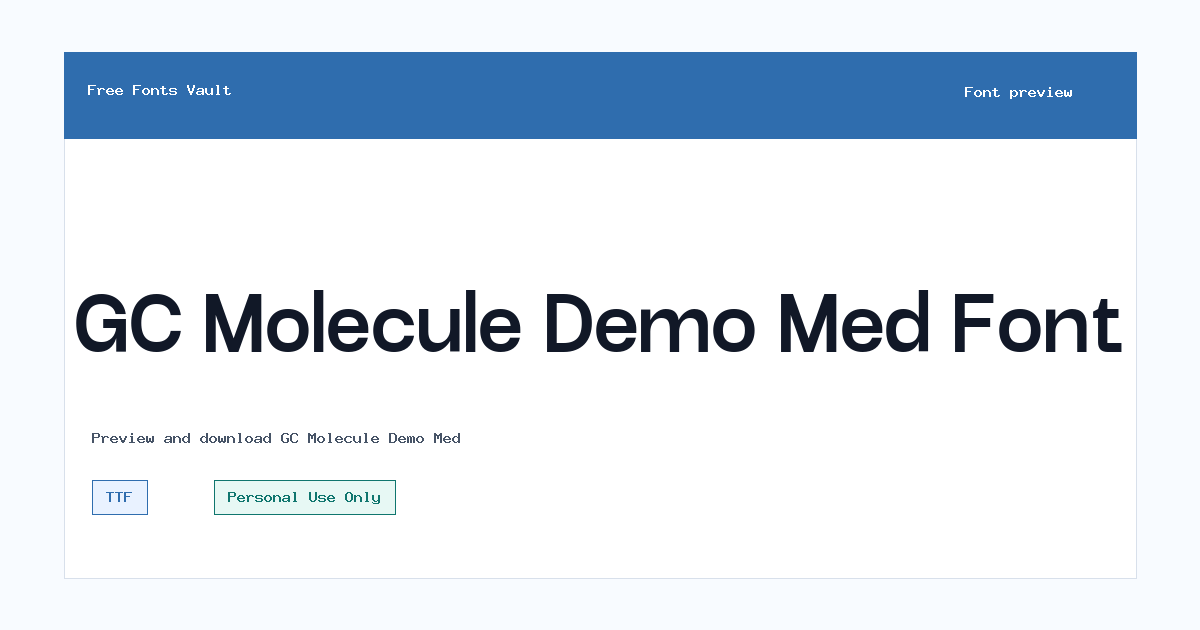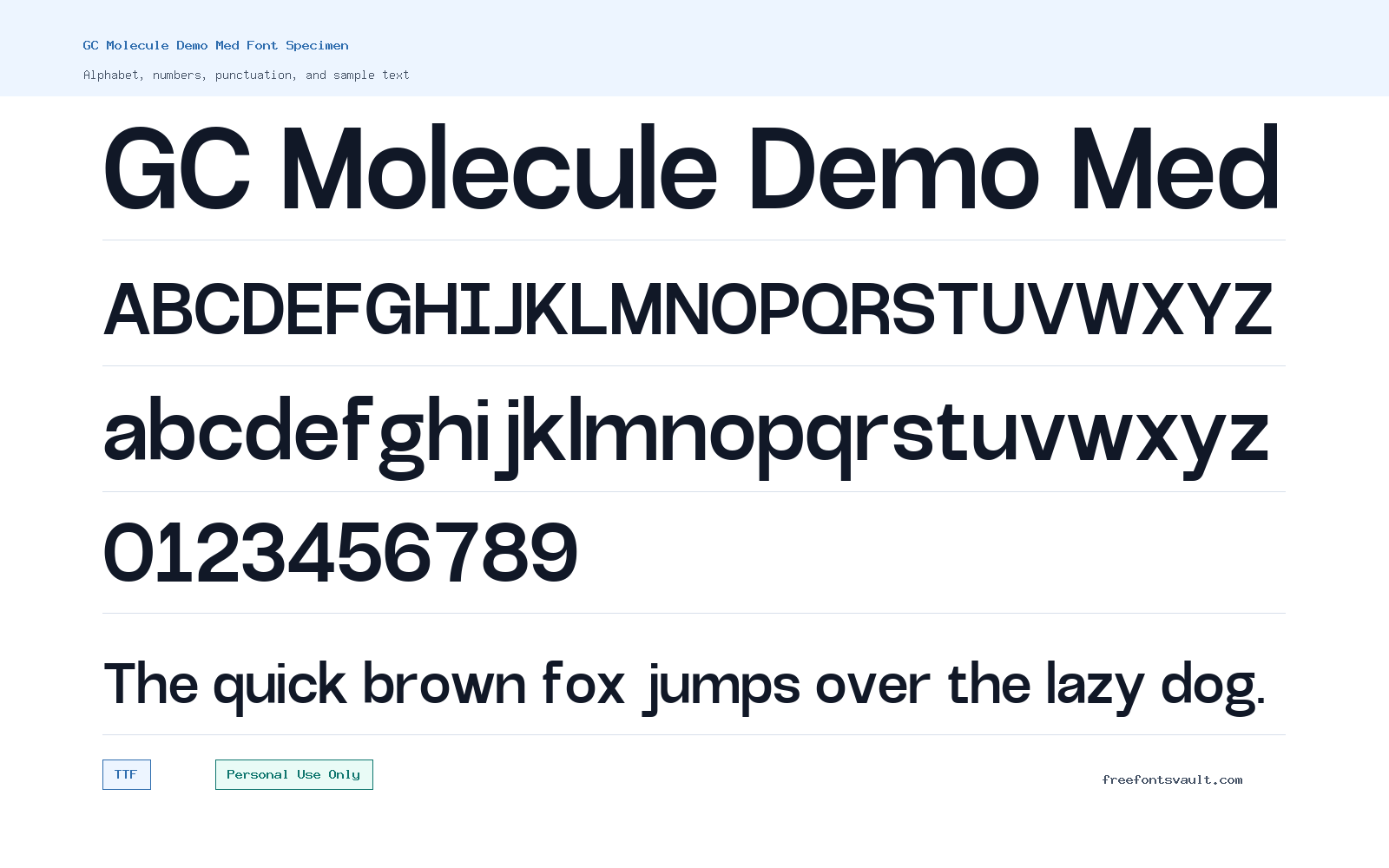
GC Molecule Demo Med
- Designer Ken Priska Dewirani of Glyphonic
GC Molecule Demo Med is a medium-weight demo sans serif with rounded bowls, clean verticals, and a compact modern look. It works best when you want a clear display face that still feels friendly at headline size.
About GC Molecule Demo Med
GC Molecule Demo Med has a simple sans serif structure with smooth curves and firm strokes. In the preview, the uppercase letters feel steady and direct, while the lowercase letters bring a softer tone through single-storey forms such as a and g. The medium weight gives it enough presence for titles without becoming too heavy. It is not a decorative script or distressed display font; the appeal is in its clean shape, tight rhythm, and approachable geometric feel.
- Rounded, modern sans serif look suited to short display text
- Personal-use headlines, posters, social media graphics, and web hero text
- Logo drafts, labels, title cards, and clean layout experiments
GC Molecule Demo Med is credited to Ken Priska Dewirani of Glyphonic, with Glyphonic also listed as the foundry.
What weight is this font?
The font file is marked as weight 500, which is generally treated as a medium weight.
What is GC Molecule Demo Med best used for?
It is best for short display text such as titles, posters, social posts, labels, and personal branding mockups where a clean rounded sans serif style is useful.
Can I use it for body text?
You can test it in short passages, but it is better suited to headings and short phrases. For long reading, pair it with a dedicated text font.